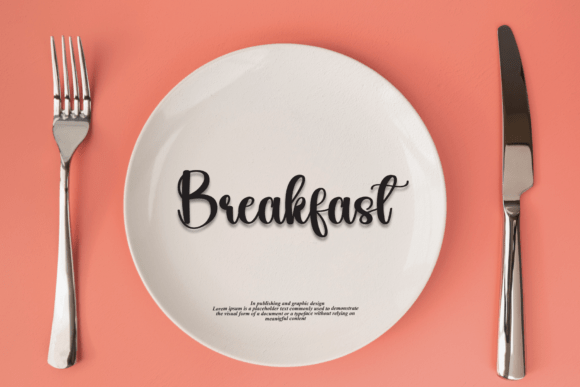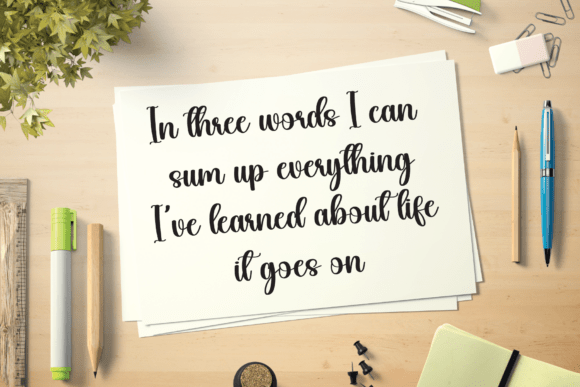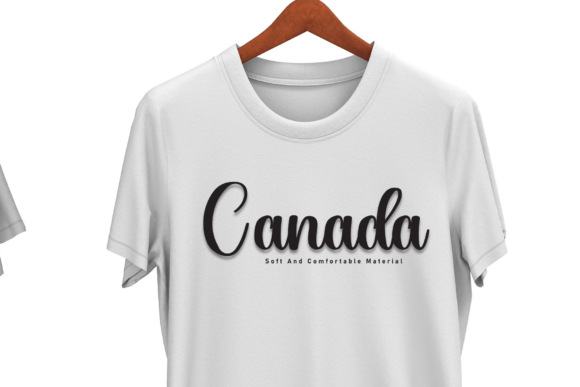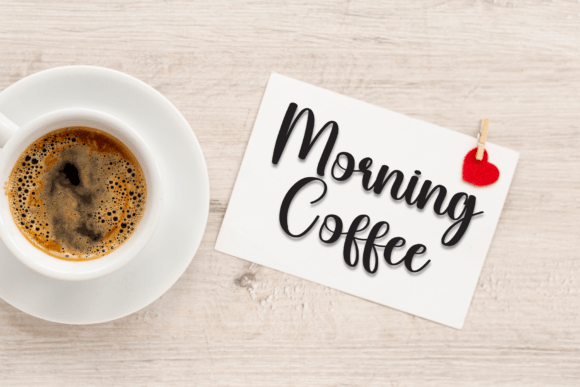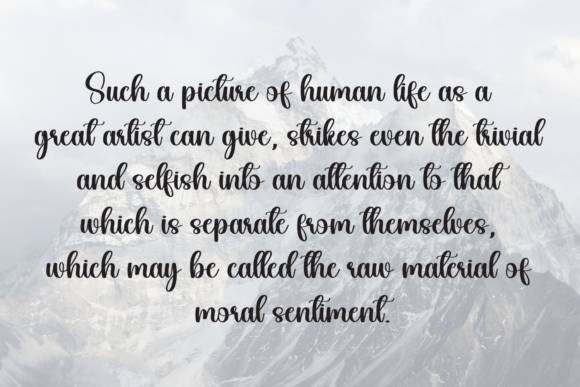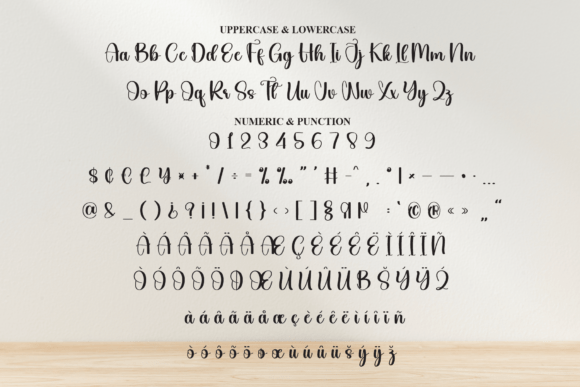
The Autism Font: A Stylish Handwritten Script for Creative Projects
I’ll never forget the time I was working on a branding project for a children’s play area, and I just couldn’t find the right font to capture the playful yet sophisticated vibe I was going for. The client wanted something that would appeal to both kids and adults, and I was determined to deliver. That’s when I stumbled upon the Autism Font, a beautiful handwritten script that instantly resonated with me. Its fluid strokes and charming curves brought a personal feel to my design, and I knew I had found the perfect fit.
So, what makes the Autism Font so special? Here are a few things that I absolutely love:
- ✨ Modern elegance: The Autism Font has a sleek, contemporary feel that works perfectly for logos, packaging, and invitations.
- ✅ Playful touch: The font’s fluid strokes and charming curves add a playful touch to any design, making it ideal for creative projects.
- 💕 Personal feel: The Autism Font brings a personal, human touch to any design, making it perfect for projects where you want to connect with your audience.
- 🤔 Limited use in body text: While the Autism Font is stunning as a headline or title font, it may not be the best choice for body text due to its script nature.
- ⚠️ Kerning issues: As with any script font, you may need to adjust the kerning to ensure that the letters flow smoothly.
The Designer Inspiration Behind the Autism Font
The Autism Font was designed with the goal of creating a stylish, handwritten script that blends modern elegance with a playful touch. The designer, inspired by the beauty of human handwriting, aimed to create a font that would bring a personal feel to any design. With its fluid strokes and charming curves, the Autism Font is perfect for creative projects where you want to add warmth, sophistication, and creativity.
| What is the Autism Font best used for? | The Autism Font is ideal for logos, packaging, invitations, and other creative projects where you want to add a personal touch. |
| Is the Autism Font available in different weights or styles? | Currently, the Autism Font is available in a single weight. However, you can experiment with different font sizes, colors, and effects to achieve the desired look. |